The Coca-Cola script is arguably the most recognized logotype on the planet — and it predates the entire concept of “downloadable fonts” by more than a century. If you’ve been hunting for a font file that matches it exactly, here’s why you won’t find one. So, what font does Coca-Cola use? None — it was never a font to begin with.
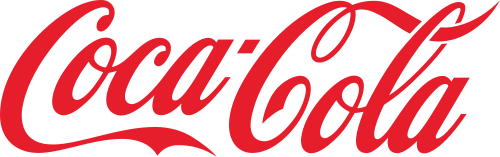
The Coca-Cola logo is hand-lettered Spencerian script, drawn in 1885 by Frank Mason Robinson, bookkeeper to the drink’s inventor, John Pemberton. Robinson based the lettering on Spencerian penmanship — the flowing, elegant handwriting system developed by Platt Rogers Spencer decades earlier and taught as the standard in American schools at the time. Robinson reportedly liked the idea partly because the two capital C’s would look striking side by side in advertising.
The logo first appeared in 1887 and was trademarked in 1893, making it one of the oldest continuously active trademarks in the United States. It’s been refined subtly over the decades, but no designer has ever fundamentally redrawn it — what’s on every can and bottle today is a carefully maintained version of Robinson’s original hand lettering, not a typeface anyone can license.
Who designed the Coca-Cola logo?
Frank Mason Robinson hand-lettered it in 1885, basing the flowing script on Spencerian penmanship, the standard handwriting style taught in American schools at the time.